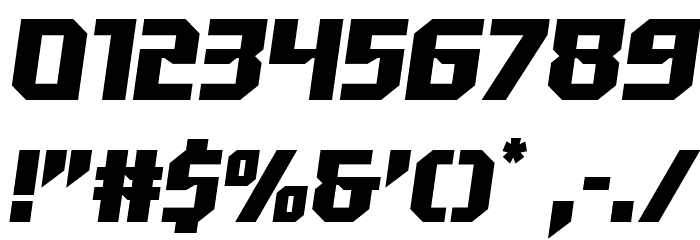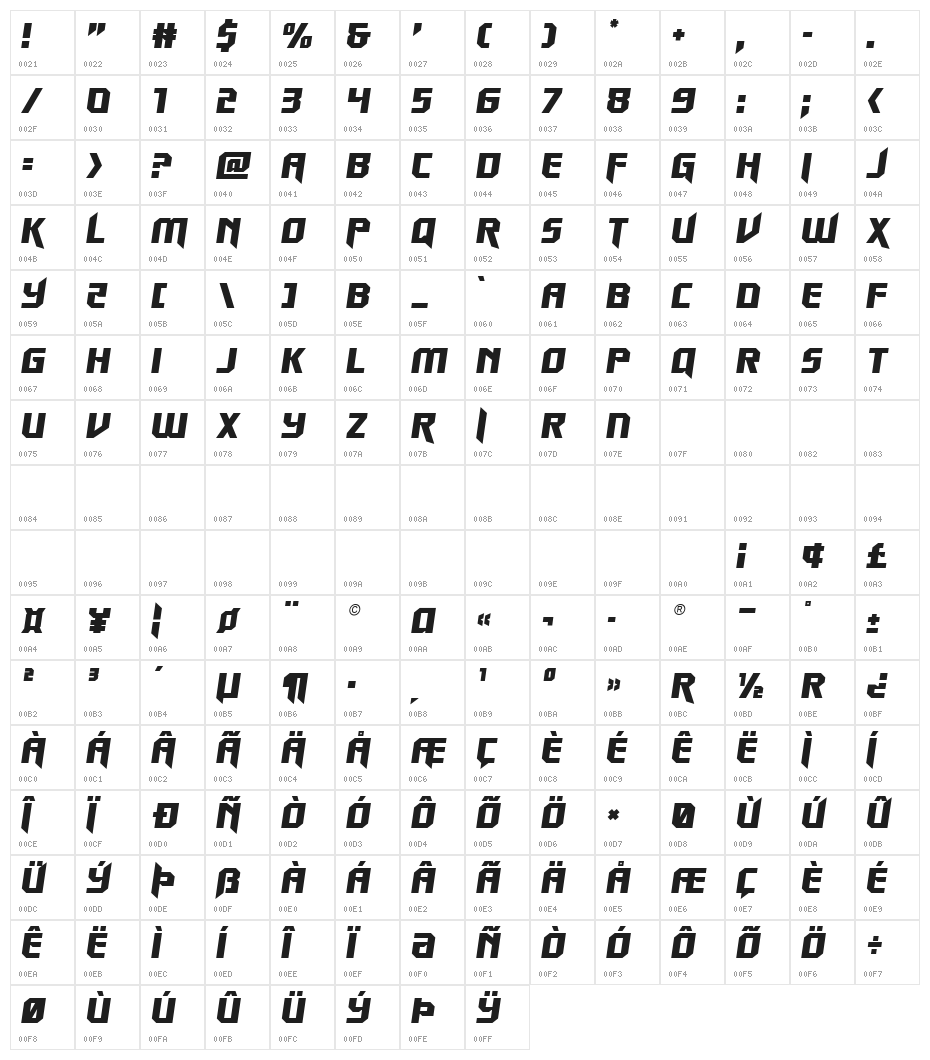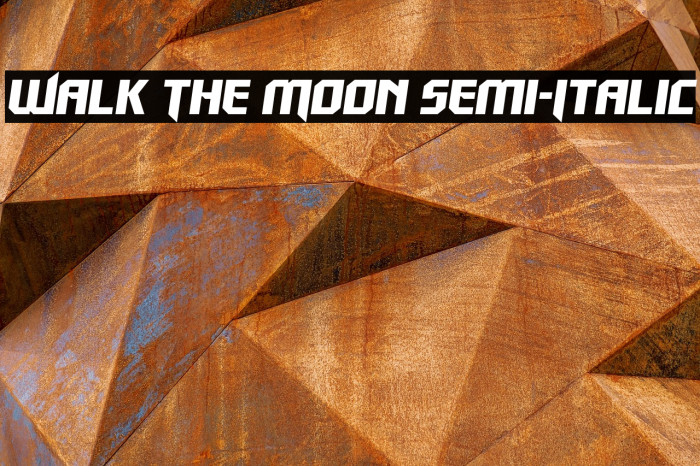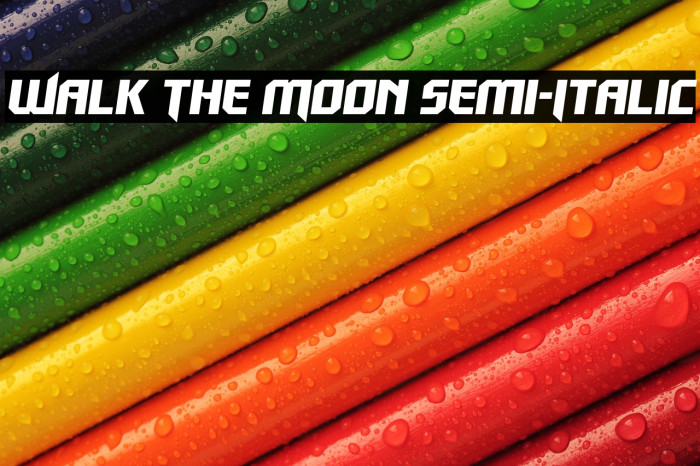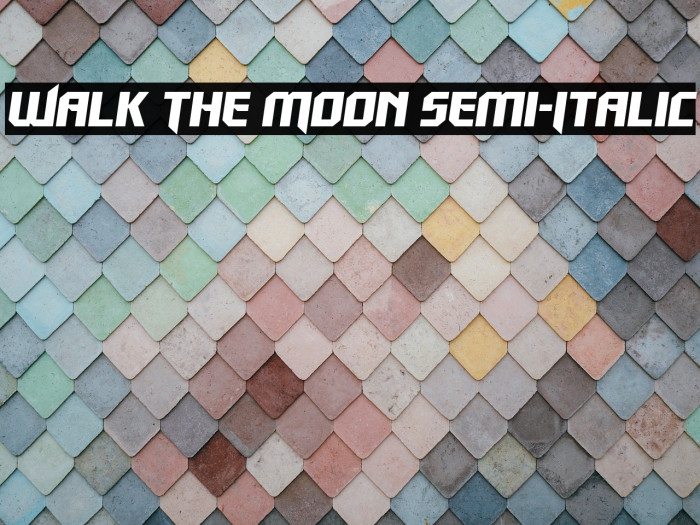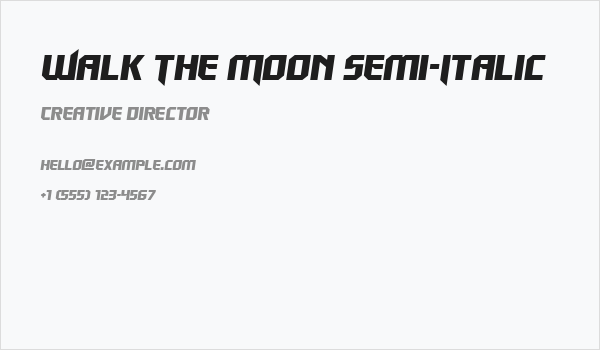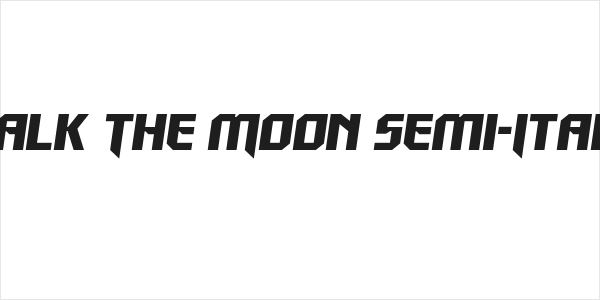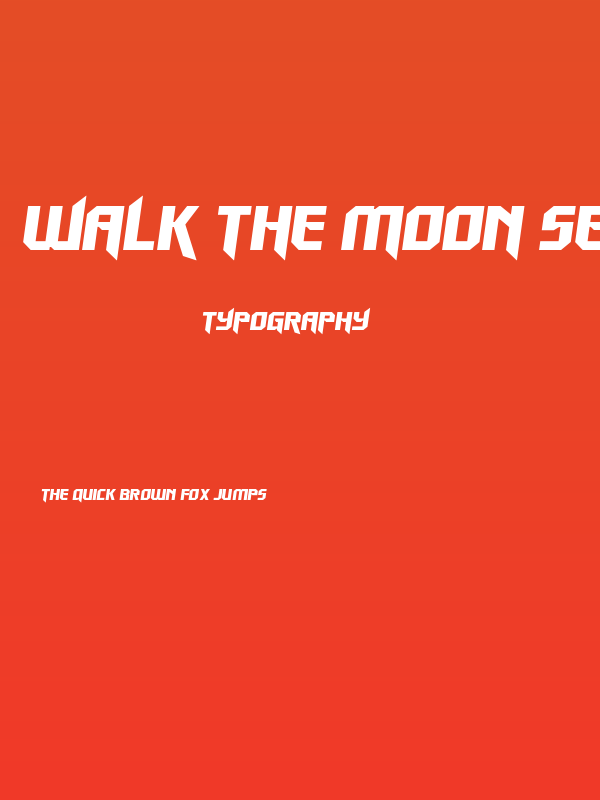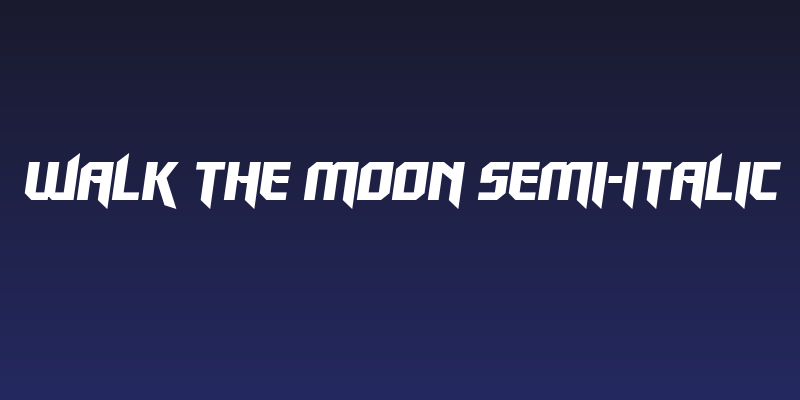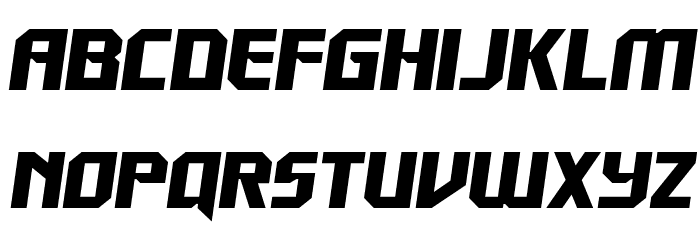
Walk The Moon Semi-Italic Font
Walk The Moon Semi-Italic Description
This font features a bold and angular design with a futuristic and dynamic appearance. The characters are sharply cut with distinct edges, giving them a strong and impactful look. The uppercase and lowercase letters maintain a consistent style, with a slight slant that adds a sense of motion and energy. The numbers and special characters follow the same design principles, ensuring uniformity across all glyphs. This font is well-suited for projects that require a modern and edgy aesthetic.